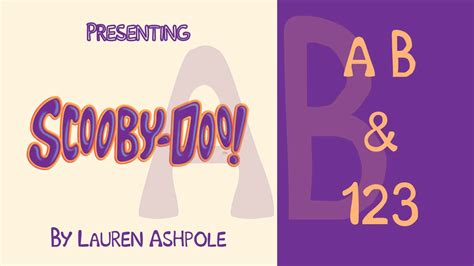
Font Scooby Doo. Scooby doo by lauren ashpole. Every font is free to download!
488,568 downloads (35 yesterday) free for. Every font is free to download! Scooby doo by lauren ashpole. Web looking for scooby doo fonts? Click to find the best 11 free fonts in the scooby doo style. Web scooby doo font is a great famous comic font that was designed and published by lauren ashpole.
488,568 downloads (35 yesterday) free for. Web looking for scooby doo fonts? Every font is free to download! Scooby doo by lauren ashpole. Web scooby doo font is a great famous comic font that was designed and published by lauren ashpole. Click to find the best 11 free fonts in the scooby doo style. 488,568 downloads (35 yesterday) free for.